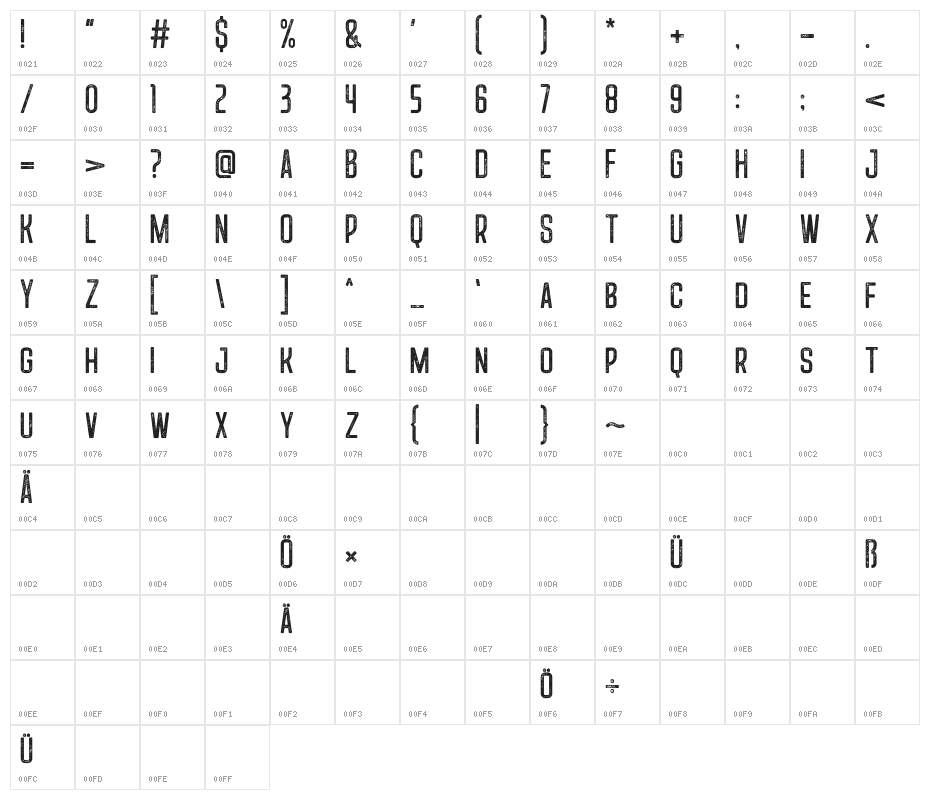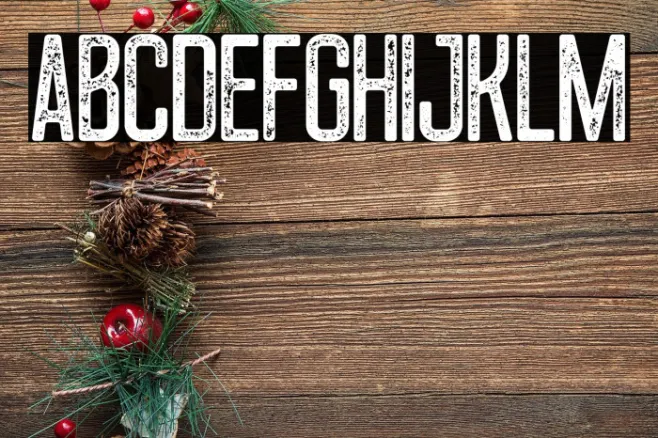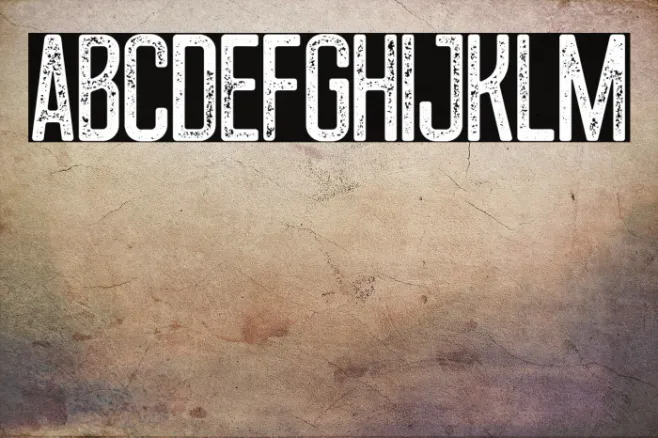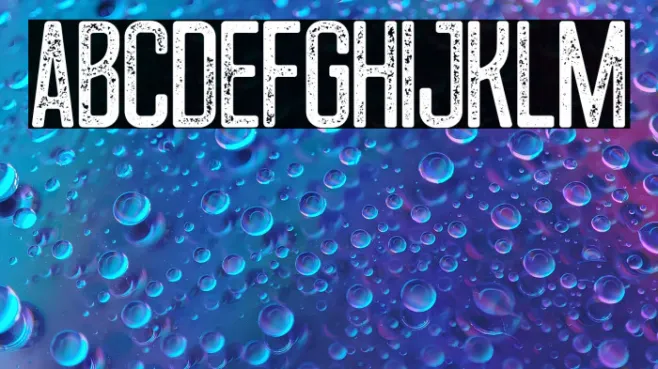
How Dare You Font
How Dare You Description
This font features a bold, distressed style with a textured appearance that gives it a rugged and vintage feel. The characters are uniformly designed with a consistent width, providing a strong and impactful look. The uppercase and lowercase letters maintain a cohesive design, while the numbers and special characters complement the overall aesthetic. The distressed texture adds a unique character to each glyph, making it ideal for projects that require a rustic or industrial touch.
| Proposed Projects | Ideal for posters, branding, packaging, and apparel designs that require a vintage or industrial aesthetic. |